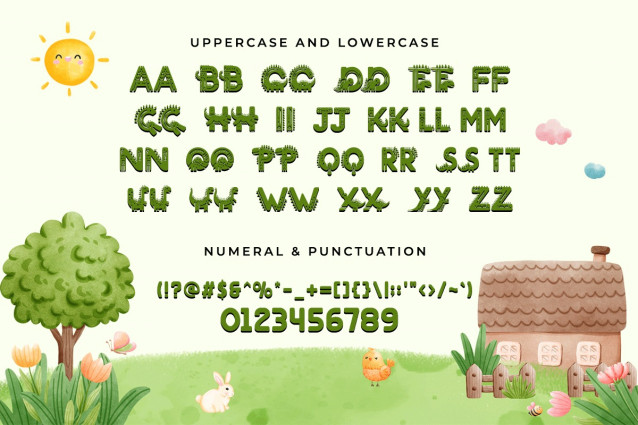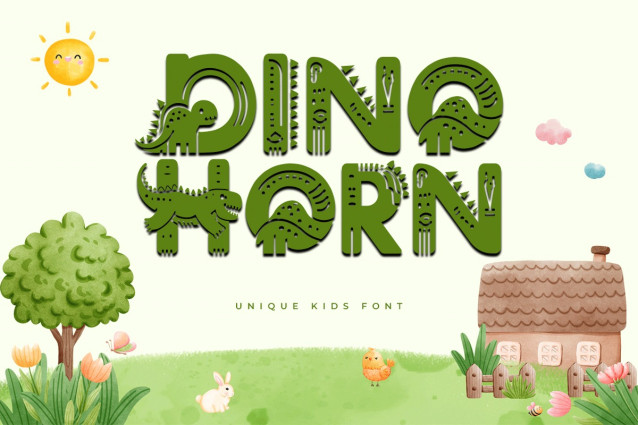
Dino Horn Font
Dino Horn Decorative Kids Font Part of our Display font collection, Dino Horn Decorative Kids Font is a modern font with a modern yet unique look. This font is a stunning typeface that anyone who sees it can easily fall in love with. Upright fonts with sculptures and dinosaur motifs are very rare. Dino Horn Decorative Kids Font can be used as a digital font and a print font. This font can be used as comic covers, magazine covers, and children’s book covers. This font can be used for posters and banners. This reason must be equipped with supporting colors and ornaments. For small print fonts, they can also be used for small theme park merchandise, such as; key chains, refrigerator magnets, and stickers, or can be produced on t-shirts, jackets, hats, etc. In addition, it can be used as snack packaging. The application of this digital font is in product advertisements, animated cartoon videos, children’s films, and so on. This font can give a fun and exciting impression to video displays. This is to attract interest in buying marketed products and watching films that have been shown. Our Display fonts collection is compatible for use as; Figma Fonts, Canva Fonts, Freepik Fonts, and Adobe Fonts. They also function as Windows Fonts and Apple Fonts. For your social media needs, you can use and install fonts in our Espot & Futuristic font collection to use as Instagram Fonts, Facebook Fonts, and Twitter Fonts.